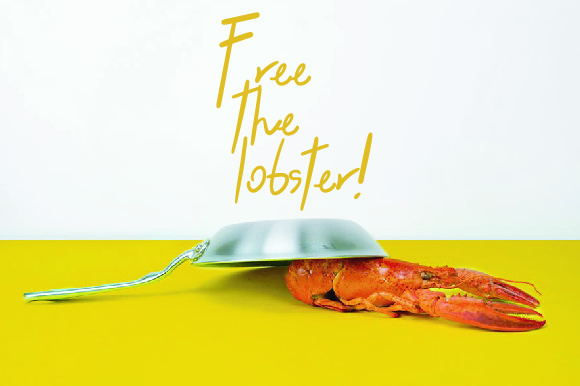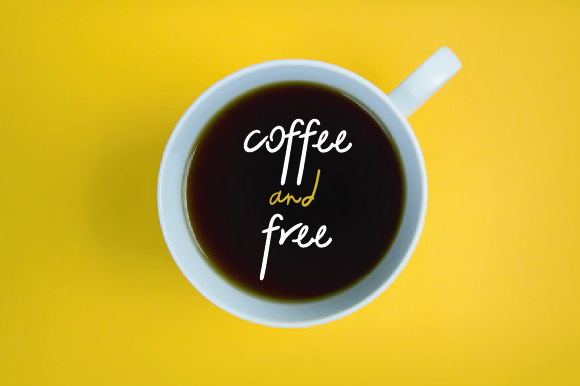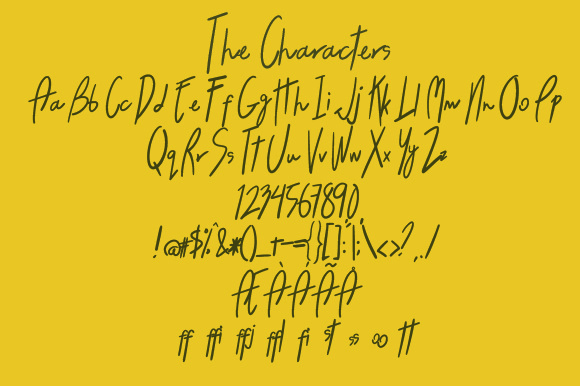
Introduction to Roca Loca Font
Roca Loca, a stunning handwritten font created specifically for branding, invitations, apparel design and other designs that need a personal touch.
Key Features of Roca Loca Font
Why Choose Roca Loca Font?
Roca Loca Font offers exceptional quality and versatility, making it a valuable addition to your design toolkit. Whether you’re creating for personal projects or commercial use, Roca Loca Font delivers professional results.